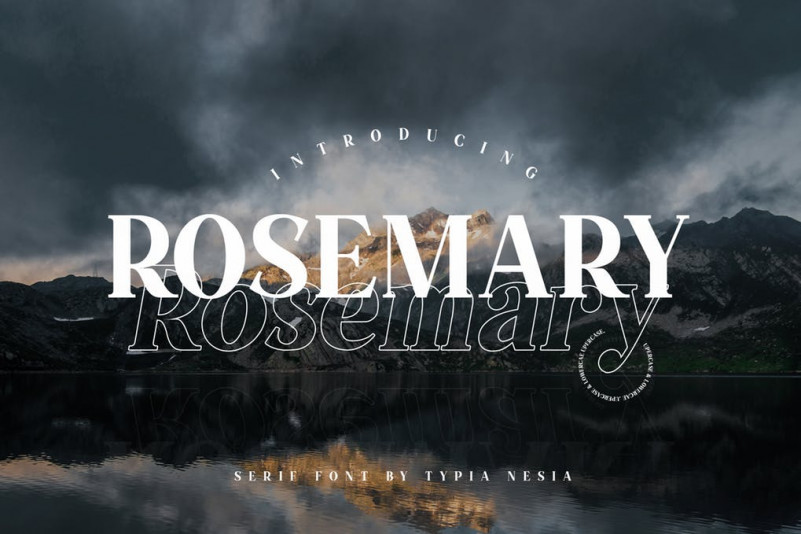
Rosemary Serif Font
Hello, looking for a new elegant font with classy and modern feels. Rosemary Serif font is perfect for your up coming projects. Such as logo branding, stationery design, blog design, modern advertising design, card invitation, art quote, home decor, book/cover title, special events ( wedding, birthday, etc ), and any more.